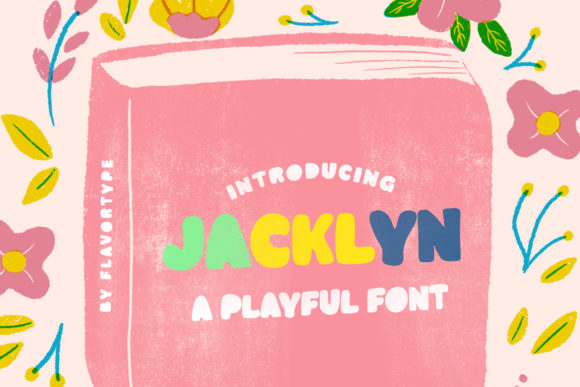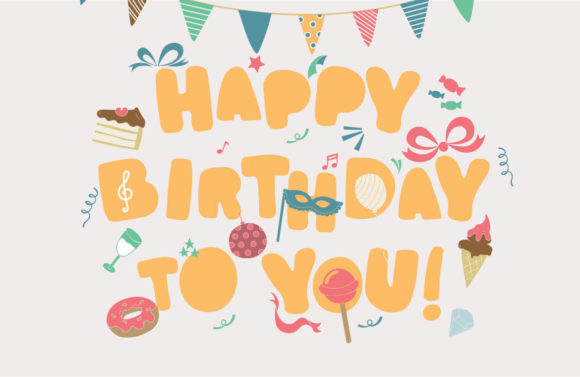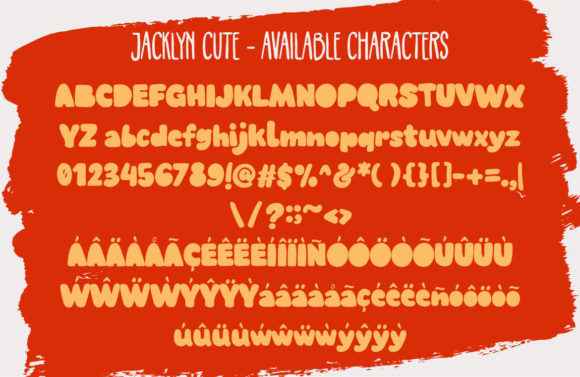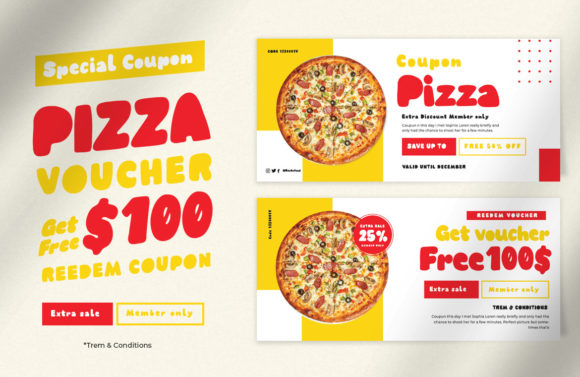
Jacklyn Font: A Cute Display Font for Playful & Creative Designs
About the Jacklyn Font
The wait is over! The incredible Jacklyn Font is now available for your design toolkit. Jacklyn is a cute, friendly and neat display font. This font is perfect for children themed designs, especially when combined with bright colors.
Jacklyn’s friendly, rounded forms make it ideal for children’s book titles, playful branding for toys or sweet treats, and eye-catching packaging designs. It also works well in short headlines for social media posts or invitations where a touch of whimsy is desired. However, its low x-height and decorative elements make it unsuitable for body text or UI elements requiring high readability.
Consider pairing Jacklyn with a clean sans-serif like Open Sans for a balanced contrast in a logo or website header. For a more sophisticated feel, a classic serif like Garamond could be used for supporting text, providing a sense of refined elegance that complements Jacklyn’s cuteness without overwhelming it.
Overall, Jacklyn projects a cheerful and approachable personality, best suited for brands and projects that value a sense of fun and approachability. Avoid using it where legibility is paramount or a more serious tone is required.
Jacklyn Font Usage Examples
Jacklyn Font Example